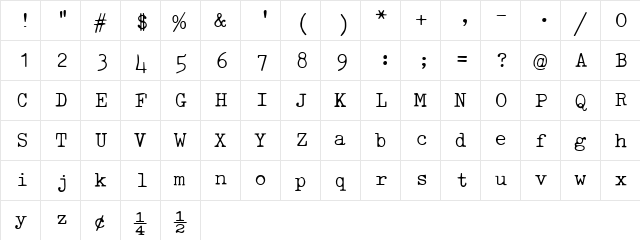
01196c Regular
Design Context for 01196c Typeface
01196c offers clean, dependable letterforms without strong stylistic allegiance, making it a practical choice for designers who need flexibility.